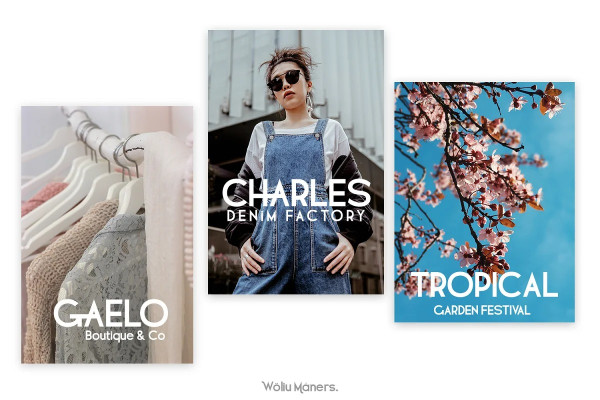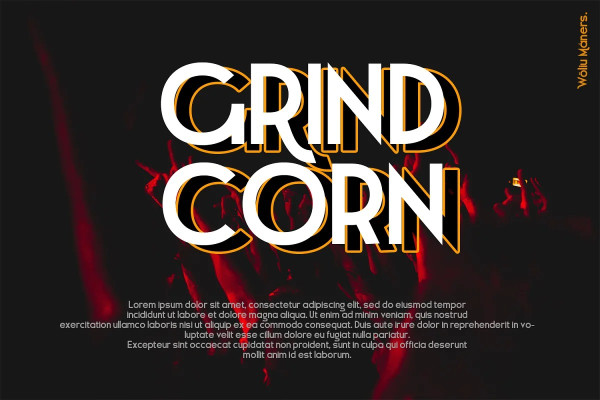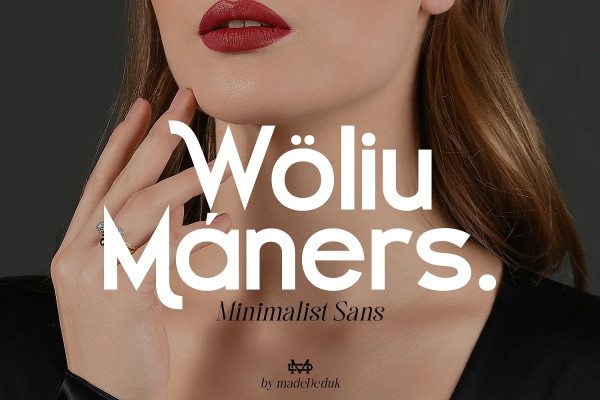
Woliu Maners Font
Woliu Maners Font is a Modern Sans, use this font for any branding, product packaging, invitation, fashion, label, poster, logo etc.